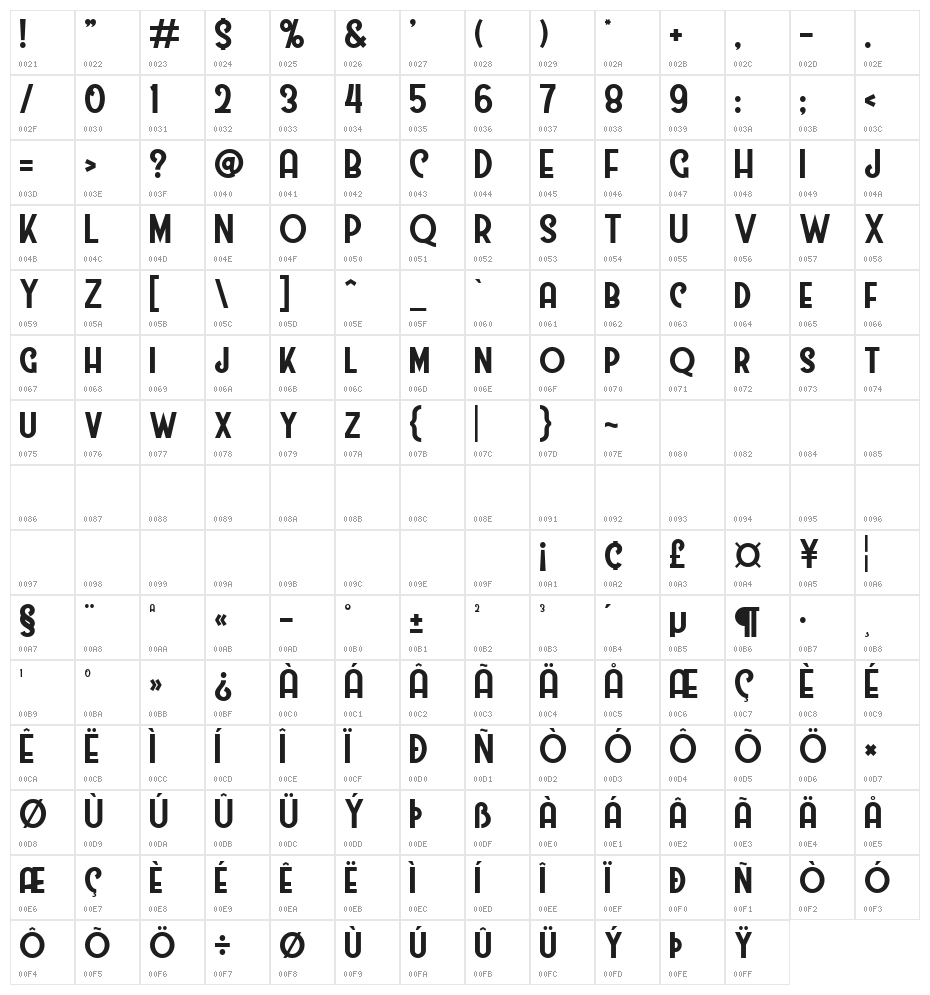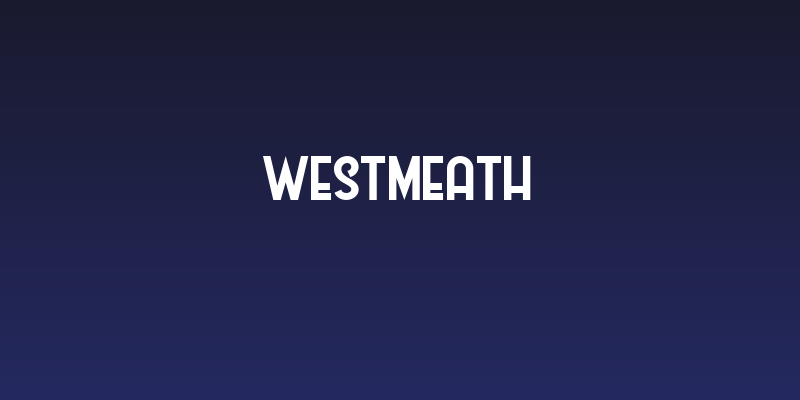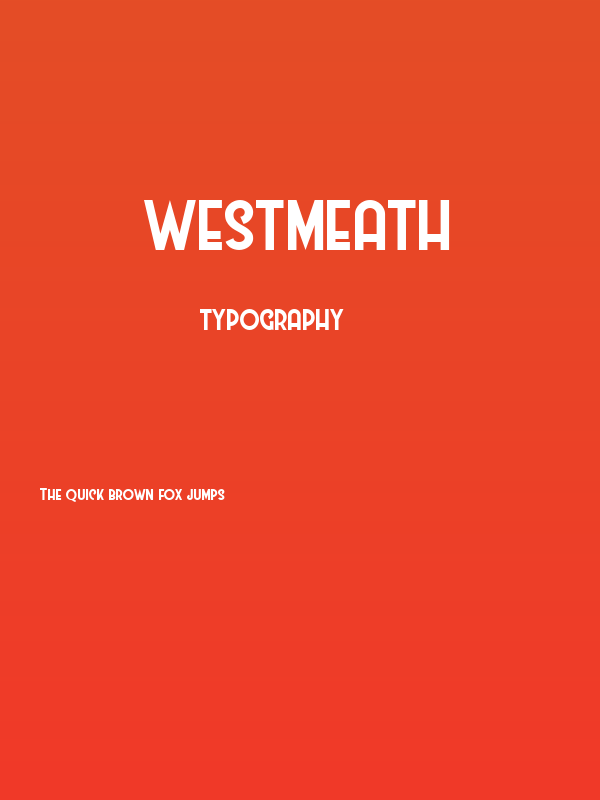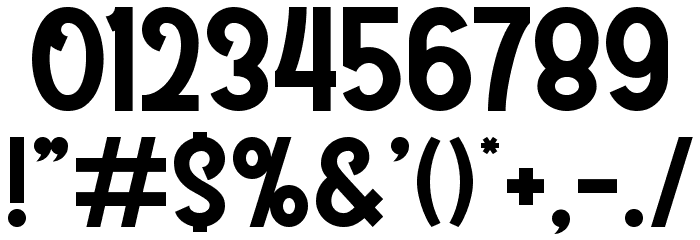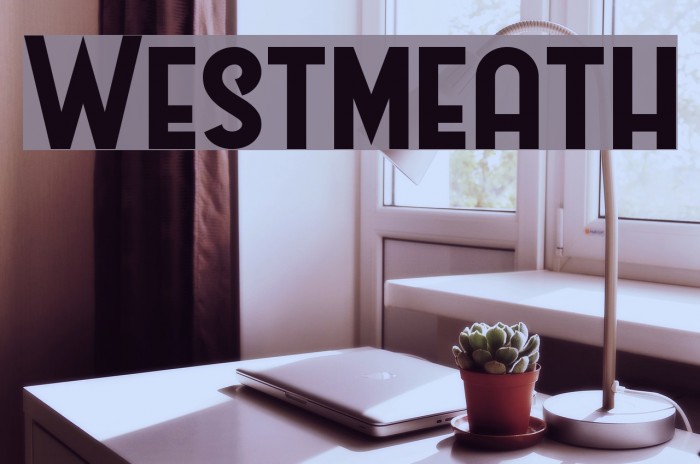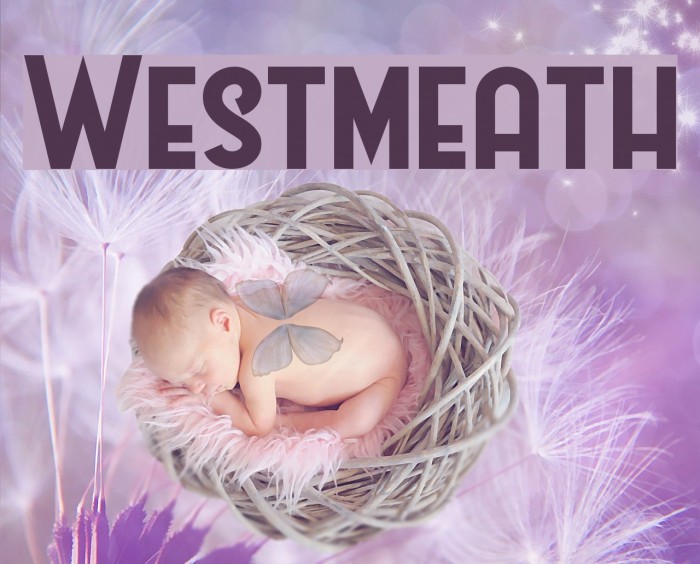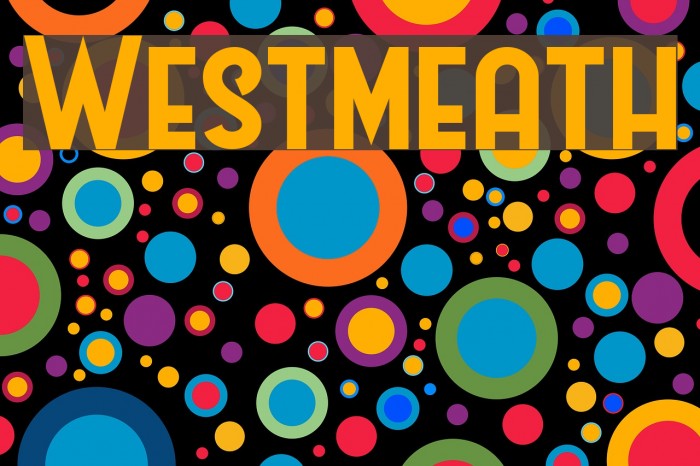
Westmeath Font
Westmeath Description
This font features bold, geometric letterforms with a strong presence. The uppercase letters are particularly striking, with a consistent stroke width that gives them a solid, impactful look. The lowercase letters maintain the same boldness, ensuring readability and uniformity across different text sizes. The numerals are equally bold, with a modern aesthetic that complements the alphabetic characters. Special characters are included, maintaining the same visual weight and style, making this font versatile for various uses. Its clean lines and lack of serifs contribute to a contemporary feel, while the boldness adds a touch of assertiveness.
| Proposed Projects | Ideal for branding, headlines, posters, and any design requiring a strong visual impact. |